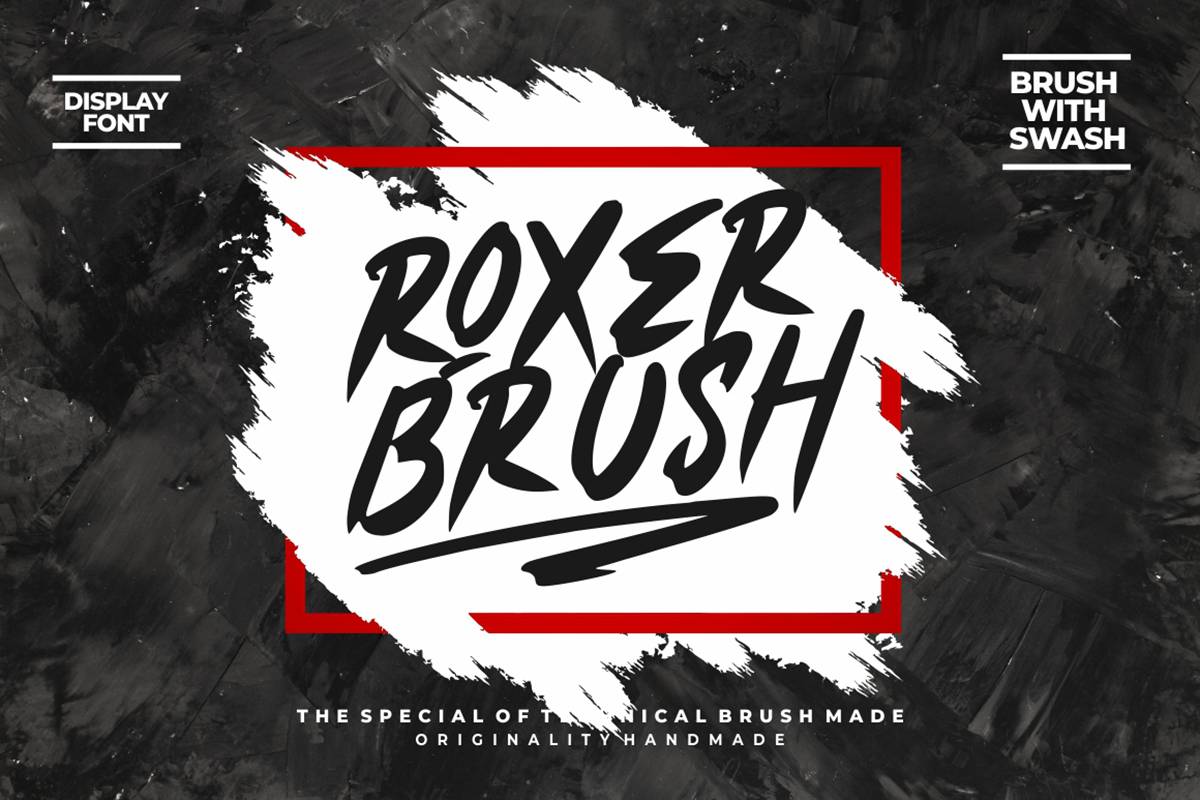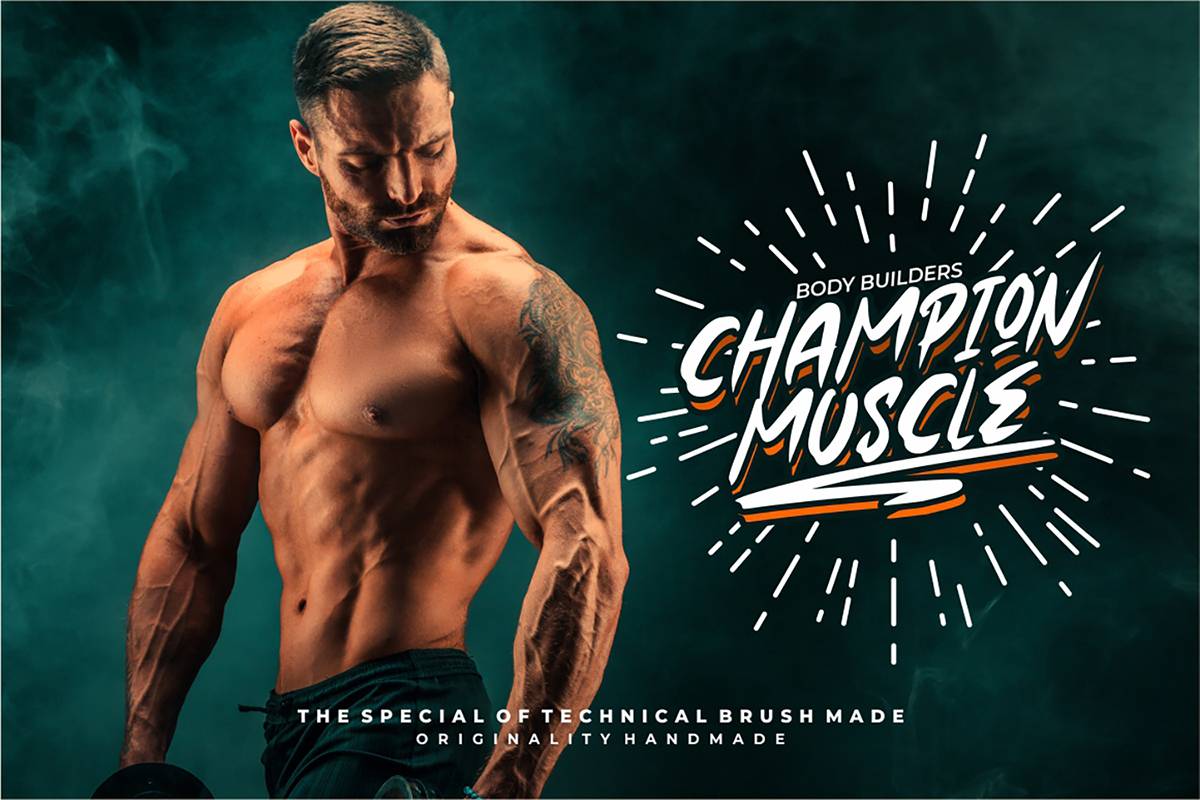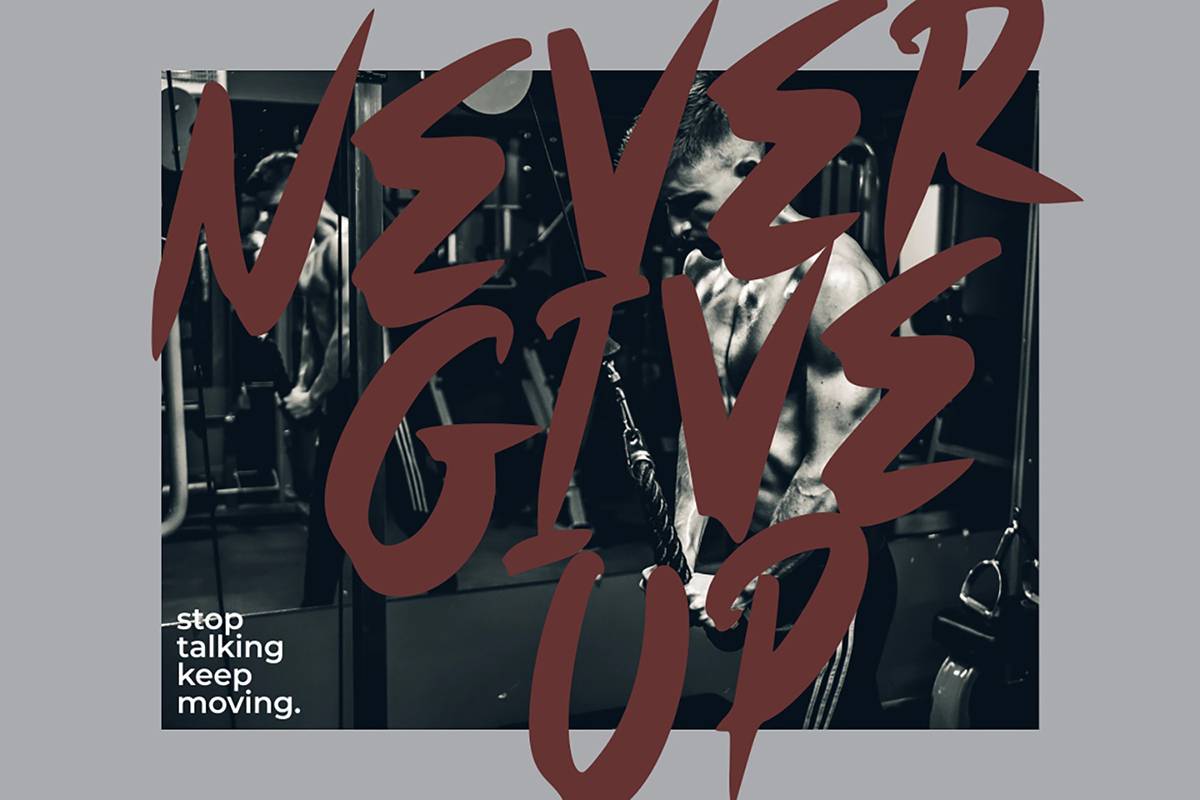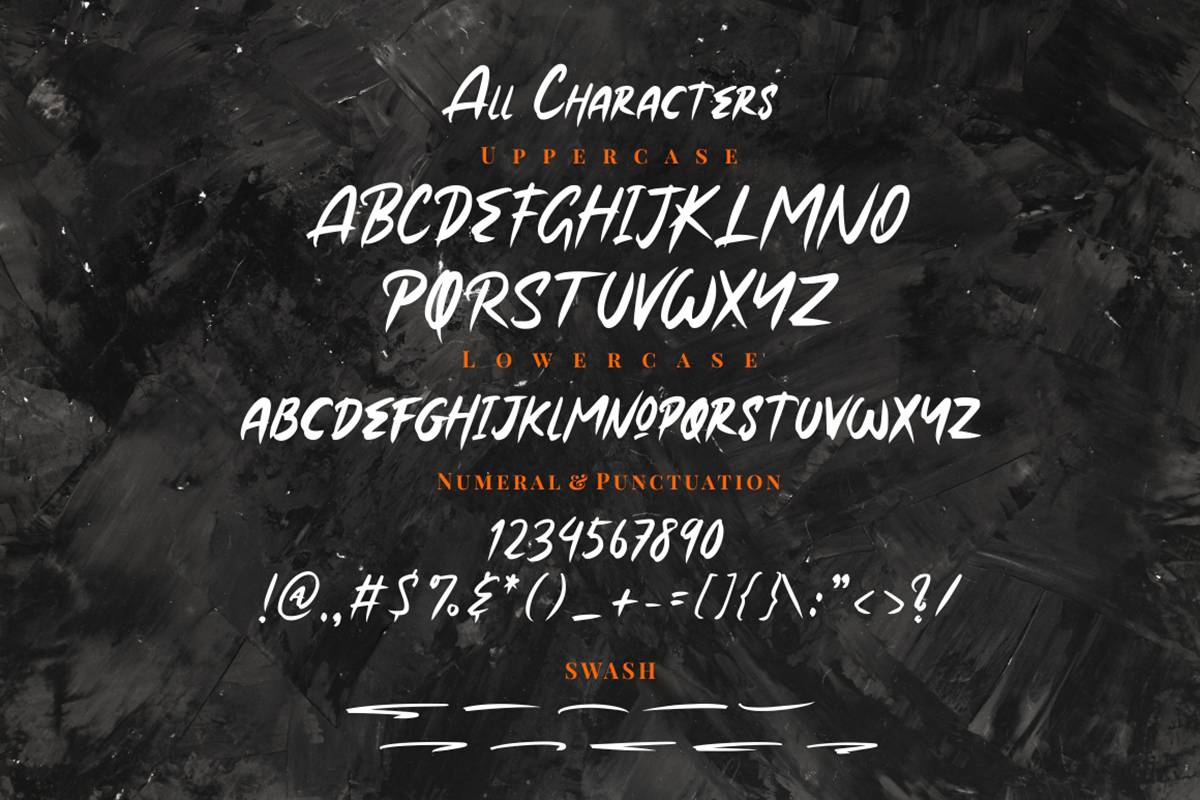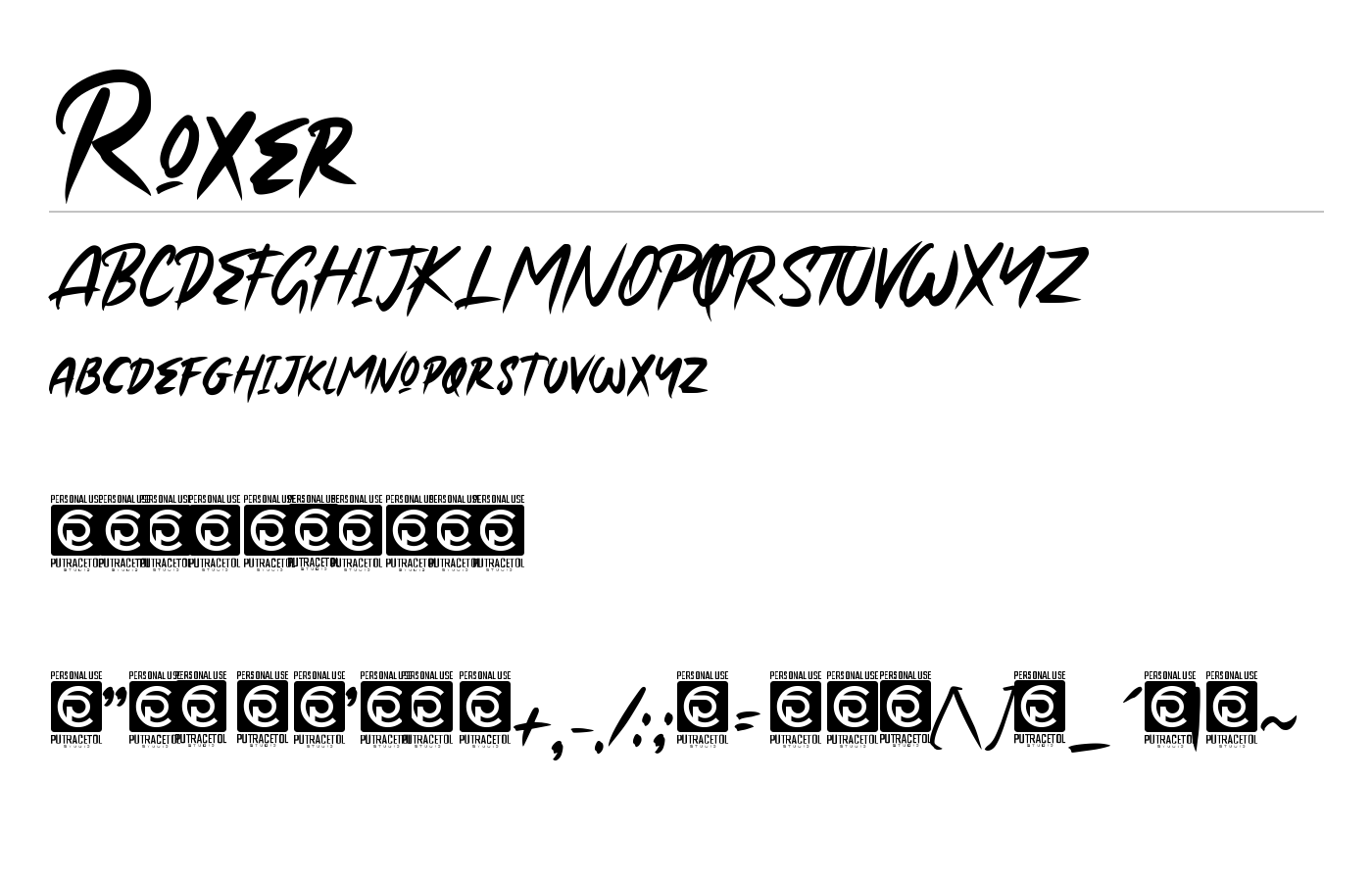
Roxer Font is a bold, energetic script-style typeface featuring sharp, dynamic strokes and a hand-painted feel that captures a sense of movement and creativity. With its uneven, expressive letterforms and high contrast between thick and thin lines, it works perfectly for branding, posters, and headlines where a playful yet impactful style is needed. This font shines in designs that want to convey artistic flair, modern personality, and a youthful vibe.
Roxer Font
About Roxer Font
| Font family | Roxer Font |